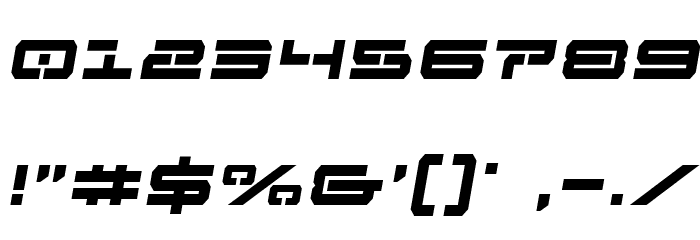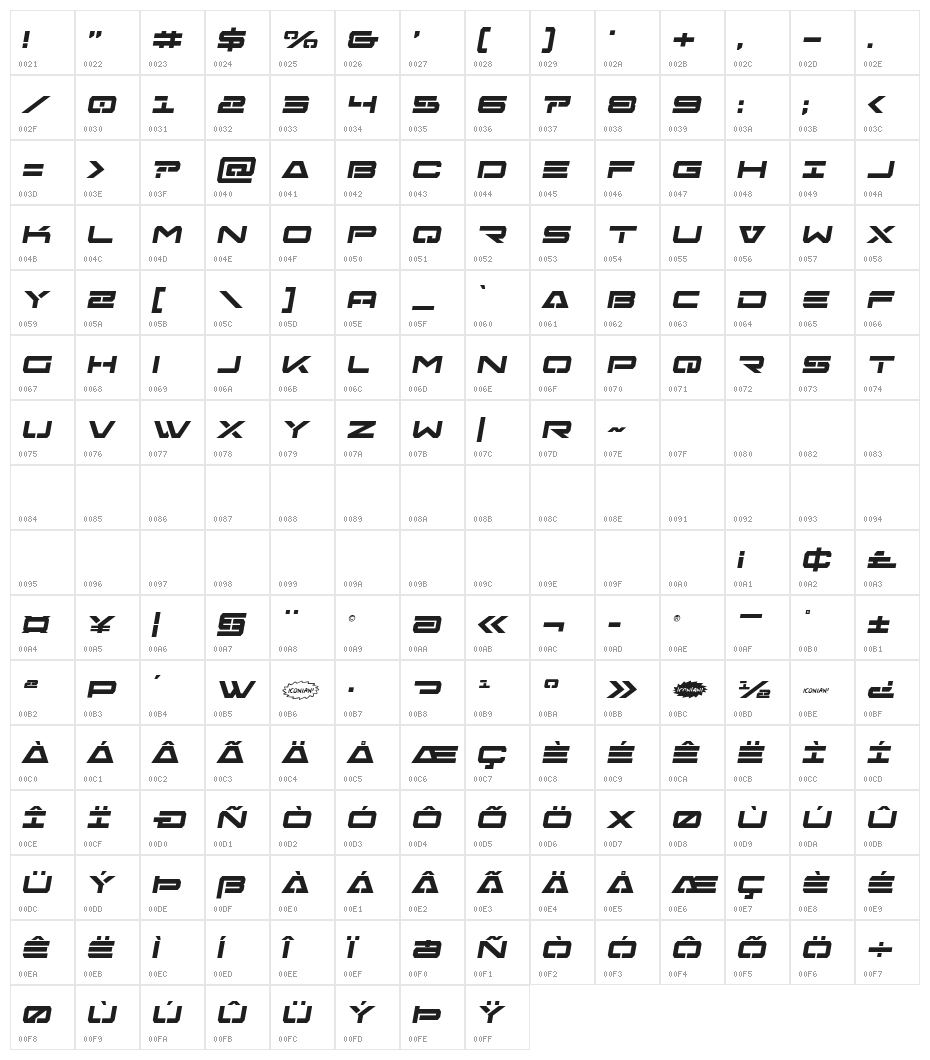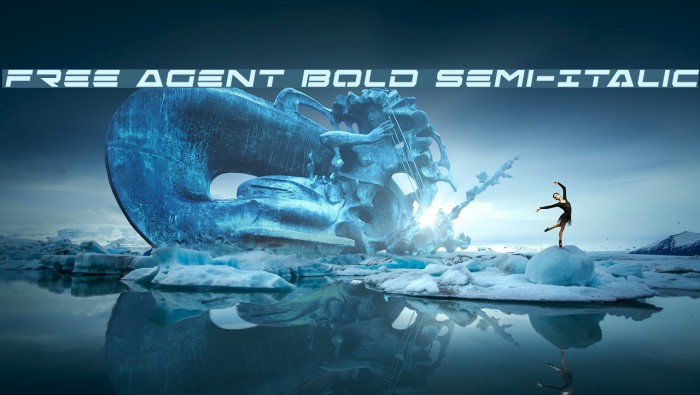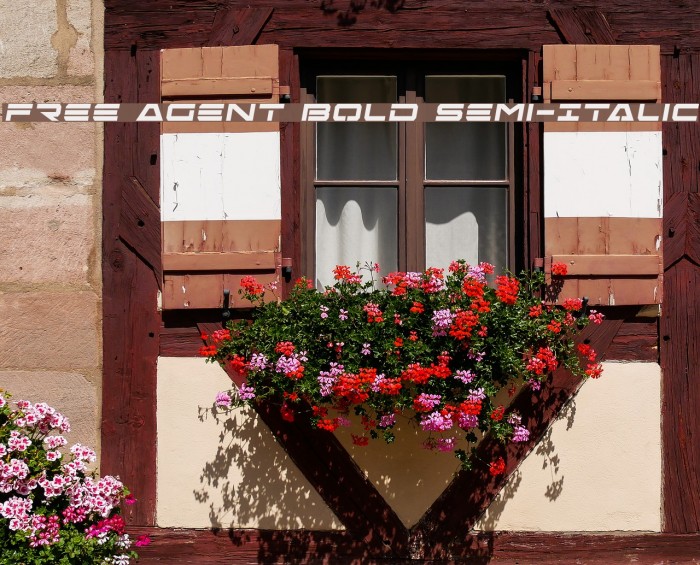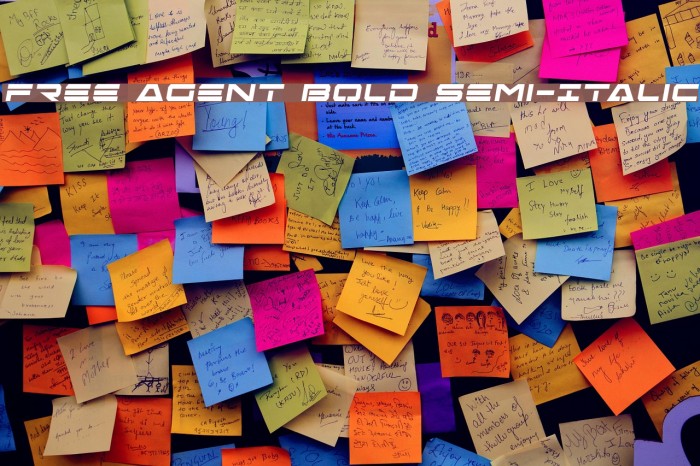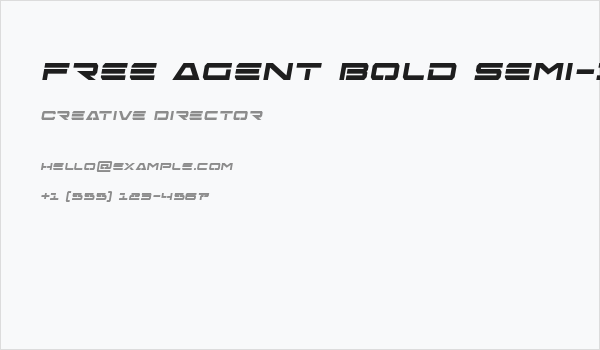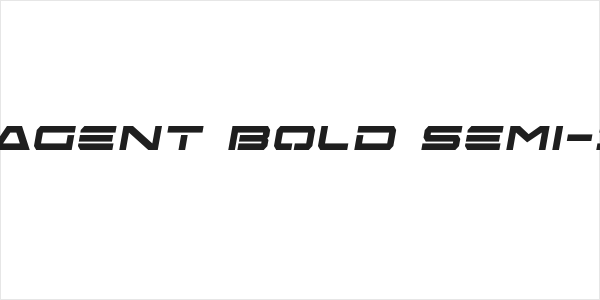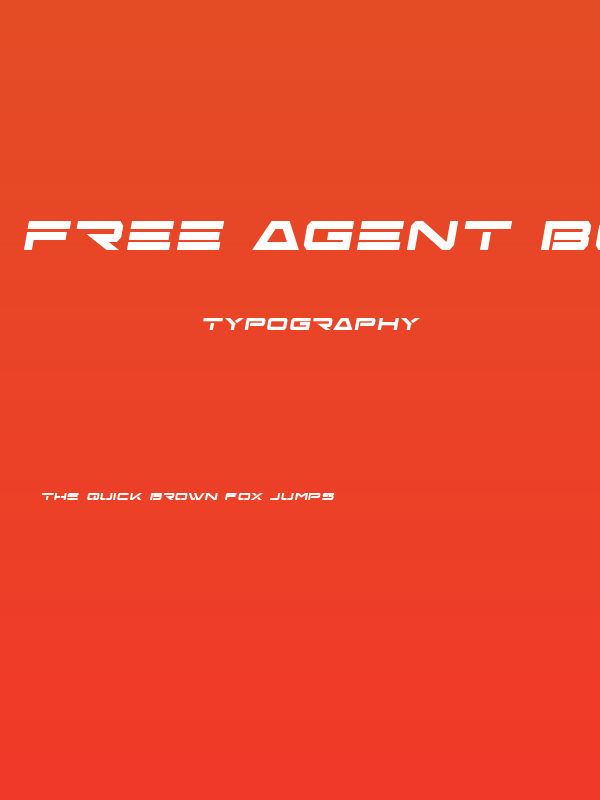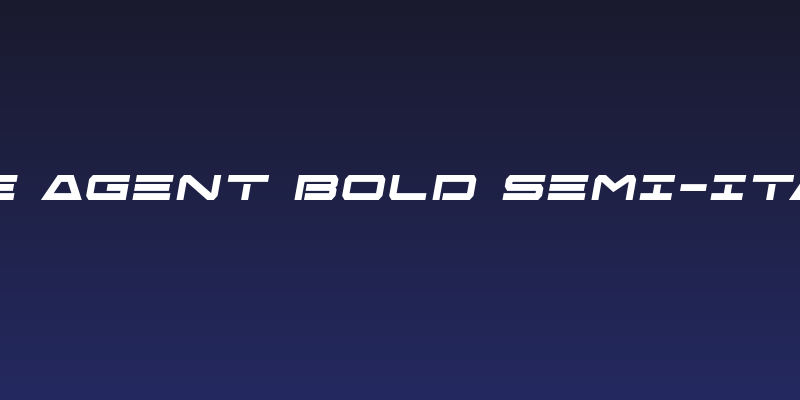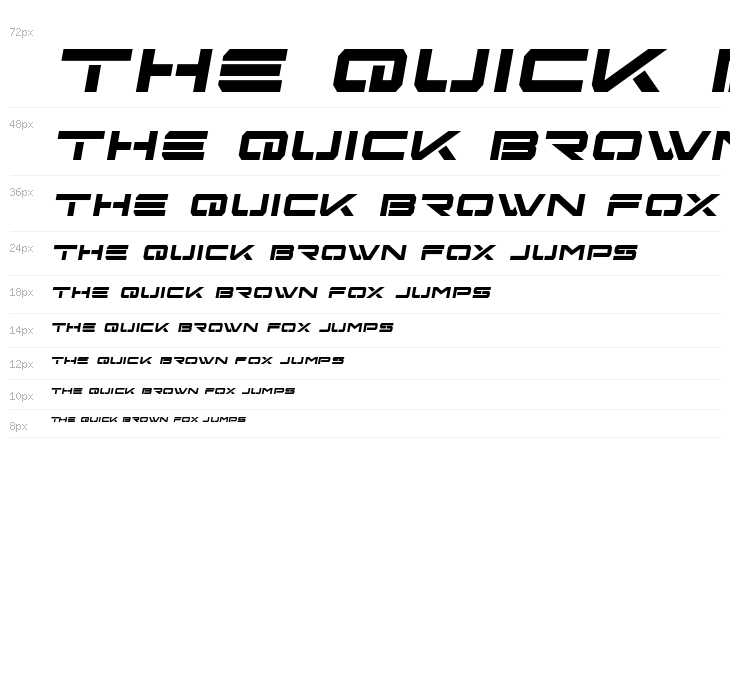
Free Agent Bold Semi-Italic Font
Free Agent Bold Semi-Italic Description
This font features a bold and semi-italic style with a futuristic and dynamic appearance. The characters are designed with sharp angles and a forward-leaning slant, giving a sense of motion and speed. The uppercase letters are distinct with geometric shapes, while the lowercase letters maintain a consistent style. The numerals and special characters complement the overall design, making it suitable for modern and tech-oriented projects. The font's unique style makes it stand out, ideal for attention-grabbing headlines or branding materials.
| Proposed Projects | Ideal for technology branding, sports team logos, video game titles, and sci-fi themed posters. |